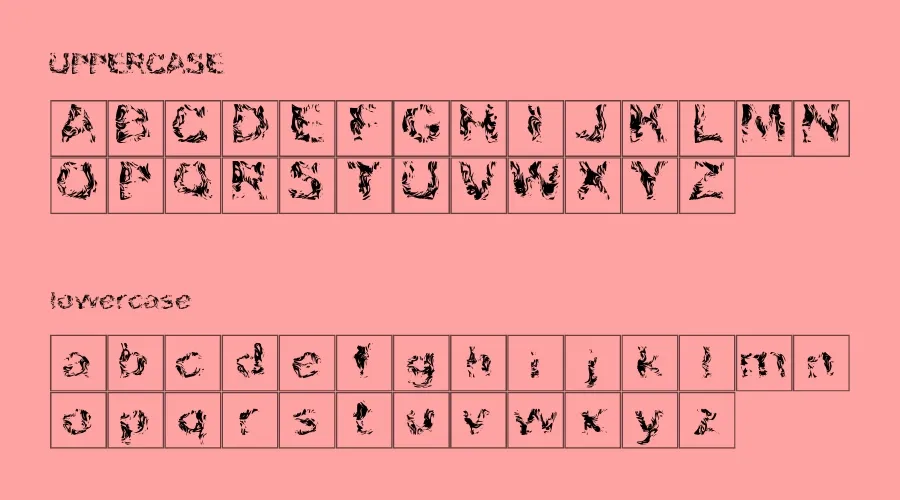
Apokalypto Font
About Apokalypto Font
The Apokalypto Font is a good-looking and stylish display typeface. It was developed by a well-known graphic designer known as the name of Evin Evin Tony and published through FoxType. This font is suitable for large and small size works.
It has an attractive and unique texture with web fonts. This font includes 347 gorgeous glyphs and contains 344 modern textures such as lowercase letters, uppercase letters, digits, symbols, signs, and punctuations. You can easily combine it with morrita font and make wonderful projects and is available in both OpenType and TrueType.
The display typeface family of this font allows for a variety of uses. For all of your creative ideas and projects, including social media posts, banners, posters, logo designs, printings, and numerous other tasks, it is the ideal option.
you can also utilize this font for wedding card designs, office cards, invitation cards, business cards, and birthday cards. It is the perfect choice for all your fun designs and projects.
• Apokalypto Regular
• Apokalypto italic
What type of Font is Apokalypto Font?
The Apokalypto Font is a good-looking and stylish display typeface. This font is suitable for large and small size works.
Who is the designer of Apokalypto Font?
It was developed by a well-known graphic designer known as the name of Evin Evin Tony and published through FoxType.